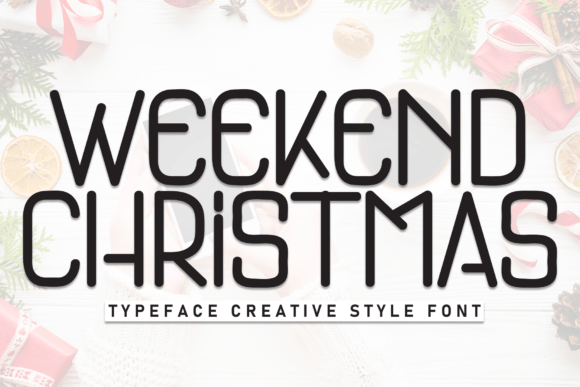
Weekend Christmas: The Perfect Display Font for Small Business Branding
When I sat down to redesign my small bakery's packaging, I realized that Weekend Christmas was exactly the playful twist our design narrative needed. As a creative consultant who has helped dozens of small businesses refine their visual identity, I know that choosing the right Display font can make or break your first impression. This enchanting and amiable handwritten display font isn't just another typeface; it is a tool that adds an adorable and entertaining trait to your brand, making it feel personal, warm, and instantly memorable.
How Weekend Christmas Elevates Bakery Packaging and Product Labels
Weekend Christmas transforms generic product labels into charming stories that customers want to read and share. When I applied this font to my bakery's new cookie boxes, the shift in perception was immediate. Before, our packaging felt functional but forgettable; after introducing Weekend Christmas, the text seemed to whisper a holiday greeting even in the off-season. Its handwritten style mimics the warmth of a baker's note, which builds trust and emotional connection with buyers.
For any business selling handmade goods, whether it is candles, skincare, or artisanal treats, typography acts as the voice of your brand. Weekend Christmas excels as a display font because its rounded, friendly letters are designed to be seen from a distance yet retain intimacy up close. It avoids the stiffness of corporate sans-serifs while remaining legible enough for ingredient lists and short descriptions. By using this font on product tags and jar stickers, you signal to customers that care went into every detail, not just the product itself.
- The font's playful curves soften the look of rigid packaging materials like cardboard or glass.
- It creates a cohesive brand identity across different product sizes and shapes.
- The "adorable" traits of the letters make gift-giving feel more special and curated.
Why Weekend Christmas Works Best for Social Media Graphics and Instagram Templates
In the fast-paced world of social media, Weekend Christmas offers a unique advantage by stopping the scroll with its distinct personality. When I refreshed my Instagram templates using this font, engagement rates for promotional posts increased simply because the visuals felt more authentic and less like stock photography. Fonts like this one are perfect for crafting digital content that feels handcrafted rather than algorithmically generated.
Whether you are designing event flyers, limited-time offer banners, or behind-the-scenes graphics, Weekend Christmas adds a layer of storytelling that standard fonts lack. Its entertaining traits allow you to highlight key messages without shouting. For instance, using the font for a "Sale" header on a flyer immediately draws attention, while pairing it with a clean sans-serif for the details ensures readability. This balance is crucial for online shop graphics where space is limited and clarity is king.
Small business owners often struggle with maintaining a consistent aesthetic across platforms. Weekend Christmas solves this by providing a strong visual anchor. You can use it for headlines, story highlights, and video overlays. Because it is a display font, it shines when used in short phrases rather than long paragraphs. Try using it for quotes from happy customers or seasonal greetings to add a touch of whimsy that resonates with your audience.
Pairing Strategies for Professional Logo Design and Brand Identity
One of the most common questions I receive is how to pair a characterful font like Weekend Christmas with other typefaces to maintain professionalism. The secret lies in contrast. Since Weekend Christmas is inherently playful and decorative, it pairs beautifully with a clean, modern sans-serif font for body text or secondary information. This combination ensures that while your logo captures attention, your contact details remain easy to read.
For a boutique creating tags or a café refreshing menus, I recommend combining Weekend Christmas with an elegant serif font. The elegance of the serif balances the fun of the display font, creating a sophisticated yet approachable brand identity. This strategy works exceptionally well for wedding invitations, bridal shower cards, or high-end beauty product labels where a touch of luxury is required alongside friendliness.
When designing a logo, Weekend Christmas should be used sparingly. It is ideal for the primary name or a specific tagline that defines your brand's mood. Avoid using it for entire sentences or complex instructions. Instead, let it serve as the star of the show, with supporting typography playing a quiet role. This hierarchy helps customers understand what is important at a glance, improving overall brand recognition.
Practical Applications for Menus, Flyers, and Event Invitations
Imagine walking into a cozy café where the menu board features Weekend Christmas. The moment you see those friendly, handwritten strokes, you feel invited to stay longer. This font brings that same welcoming atmosphere to printed materials like flyers, event invitations, and thank-you cards. For small business owners, these physical touchpoints are critical for building loyalty, and the right fonts can elevate them from simple paper to cherished keepsakes.
Ultimately, Weekend Christmas is more than just a collection of letters; it is a strategic asset for any business looking to stand out. Its enchanting and amiable nature makes it the perfect choice for crafting designs that resonate emotionally with customers. By investing in high-quality fonts like this, you are investing in the longevity and perceived value of your brand. Whether you are updating your online shop banner or printing a stack of business cards, this font provides the polished, consistent, and memorable look that small businesses need to thrive.